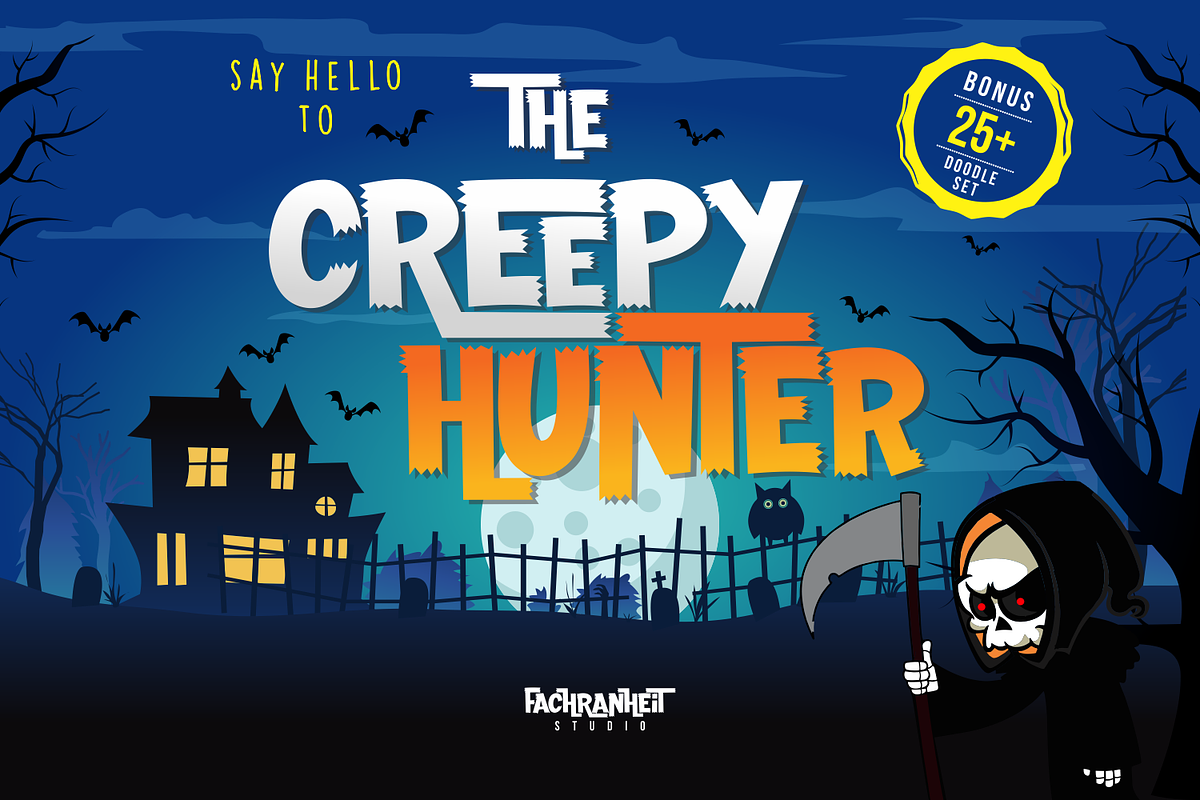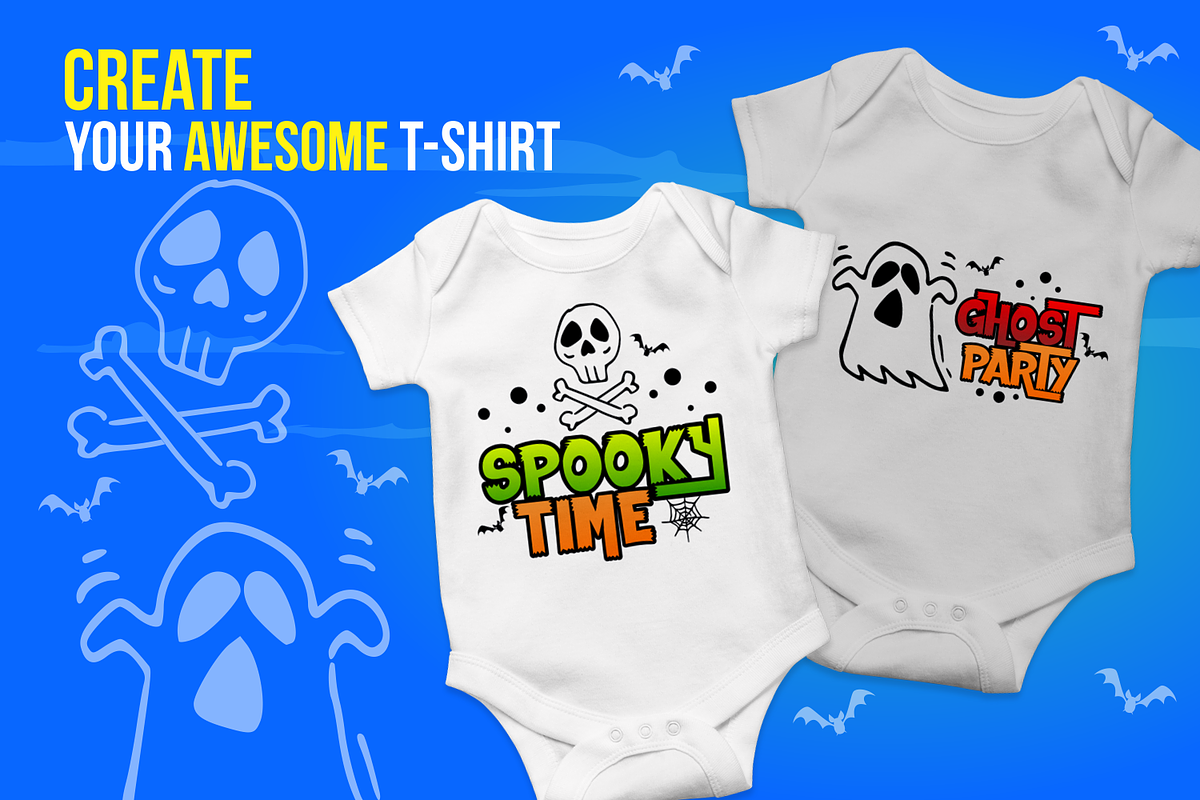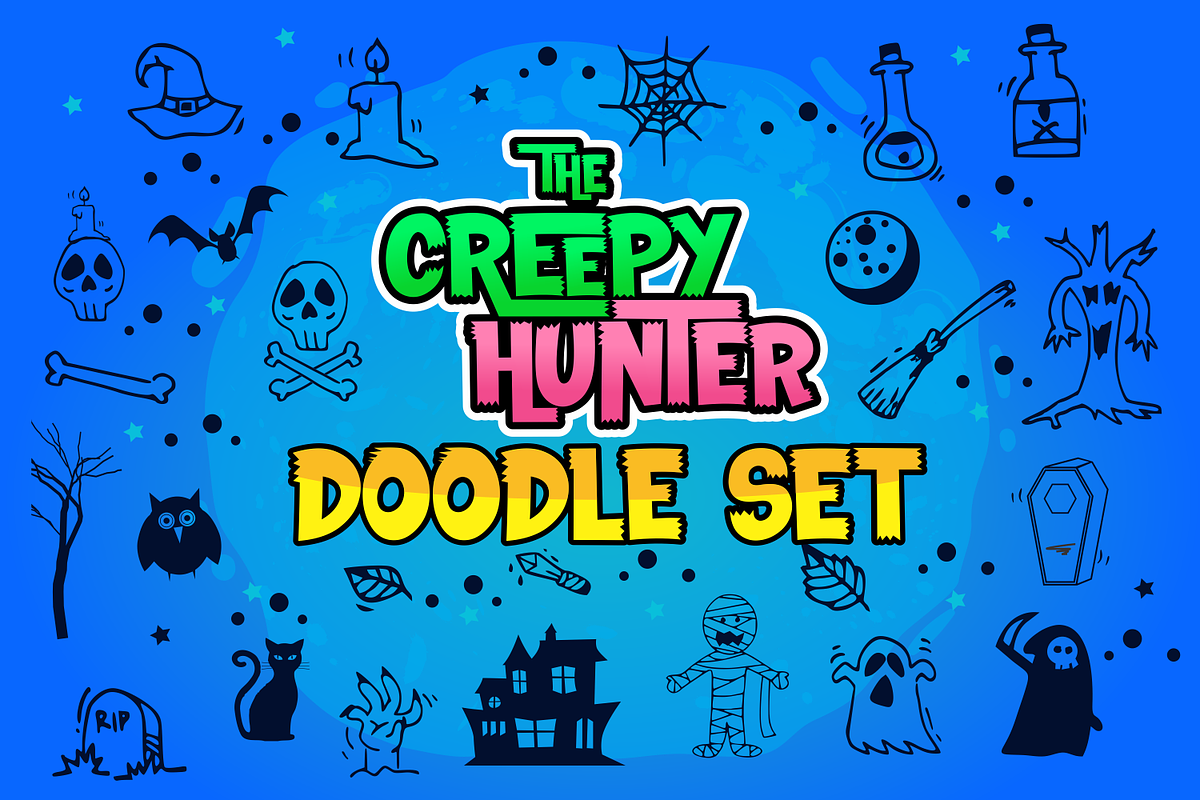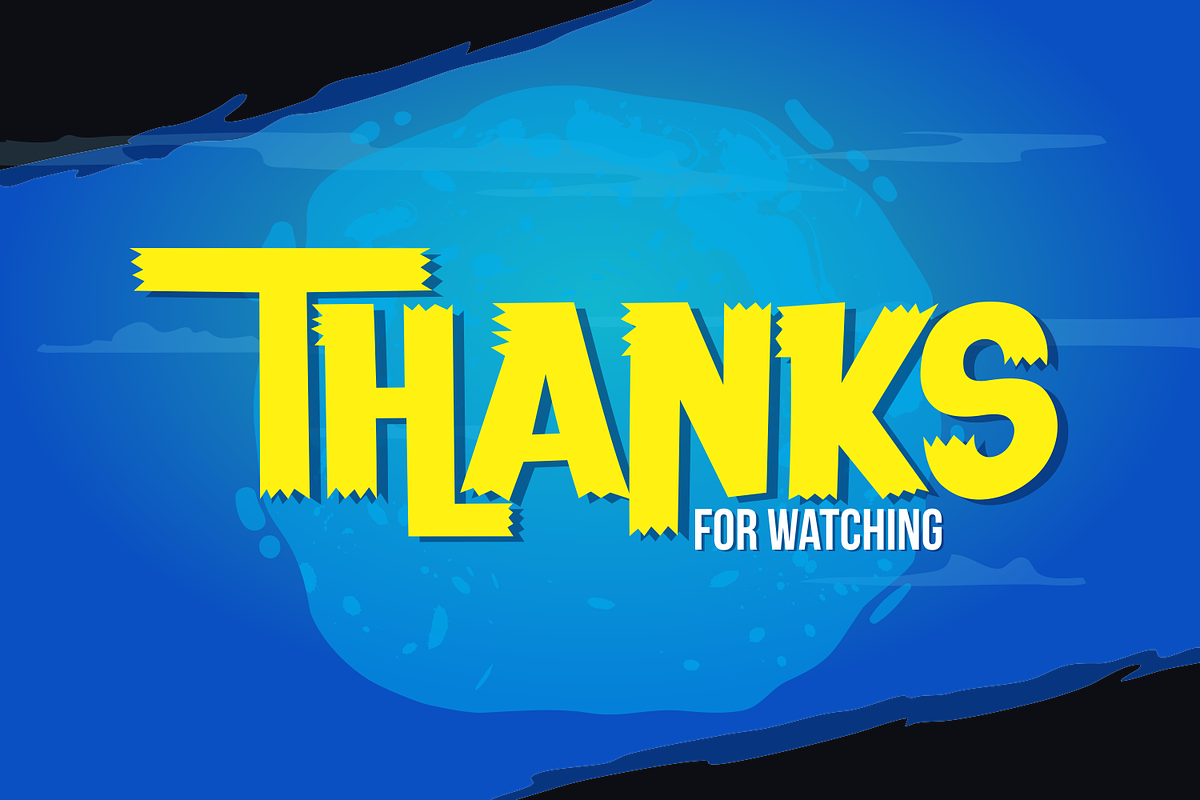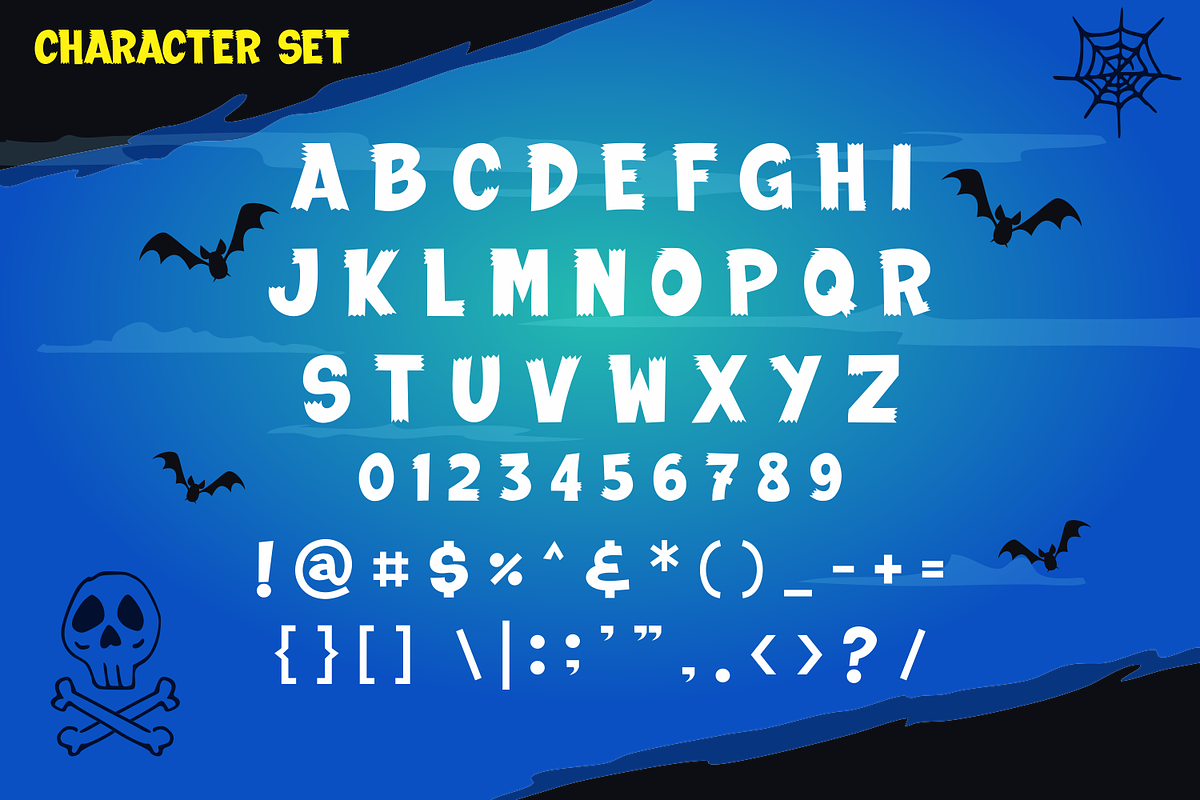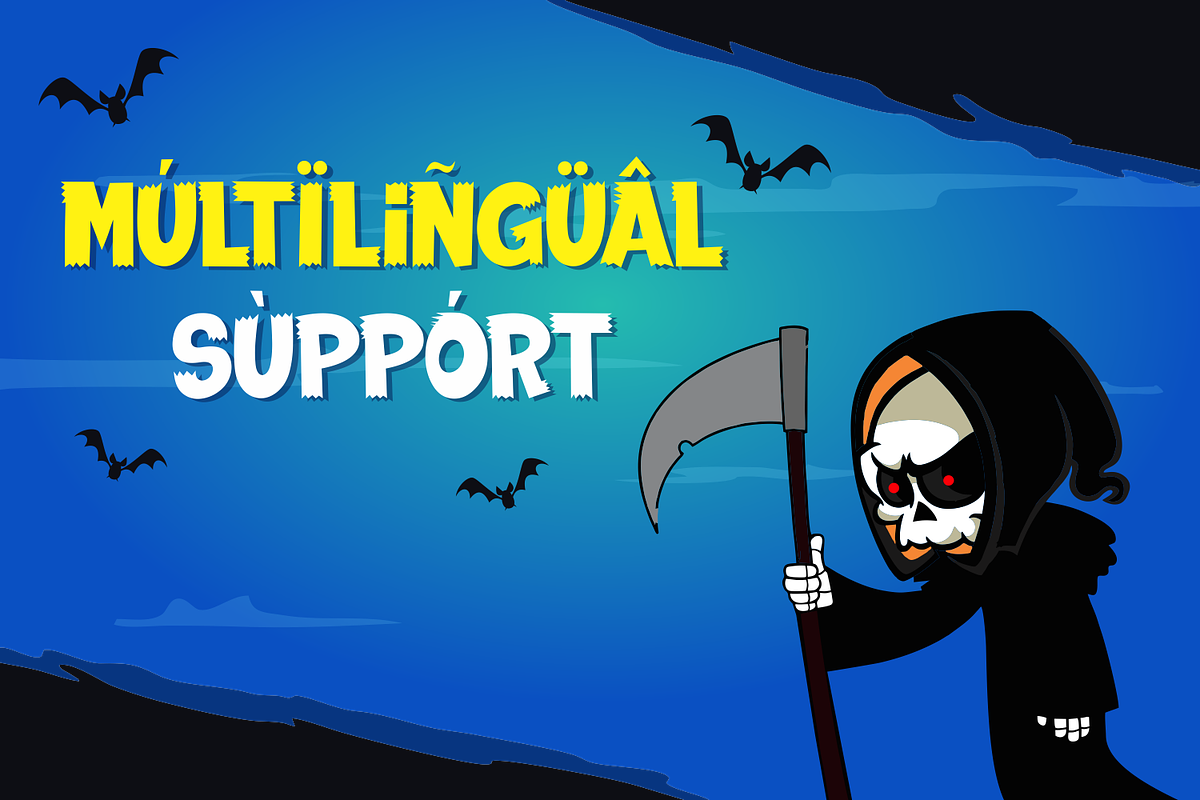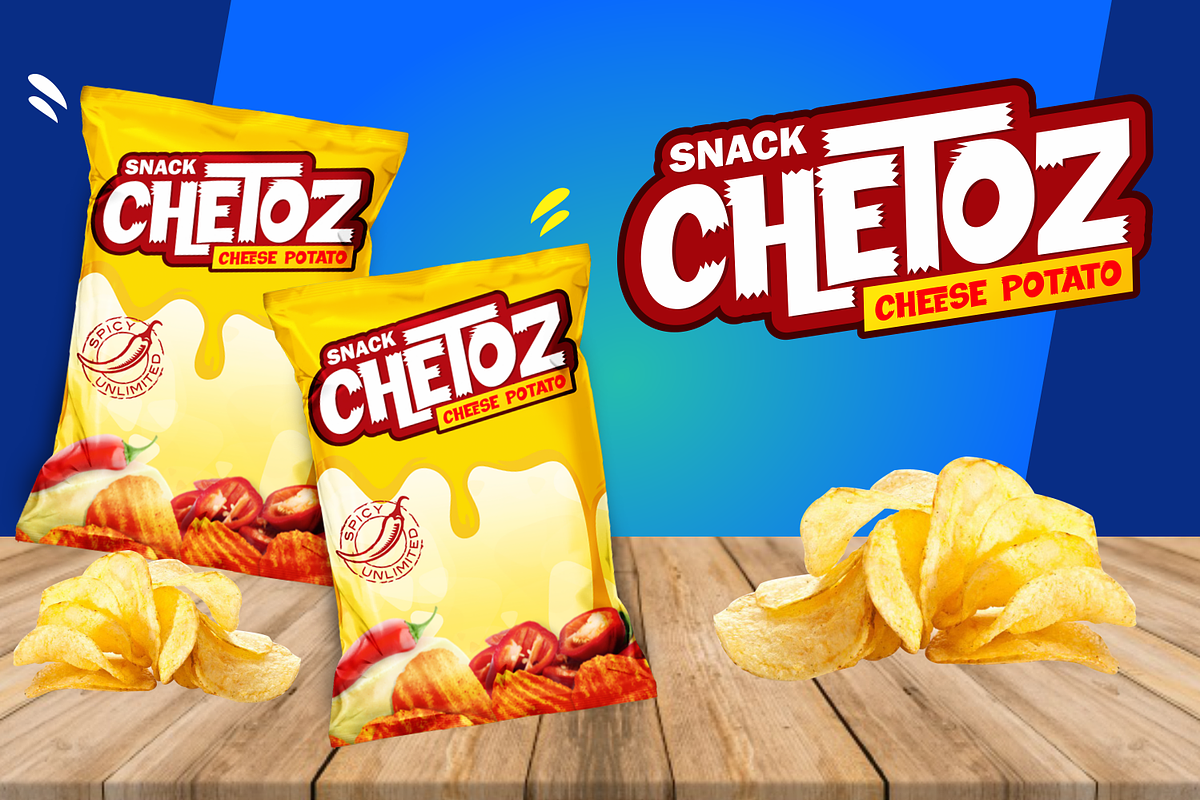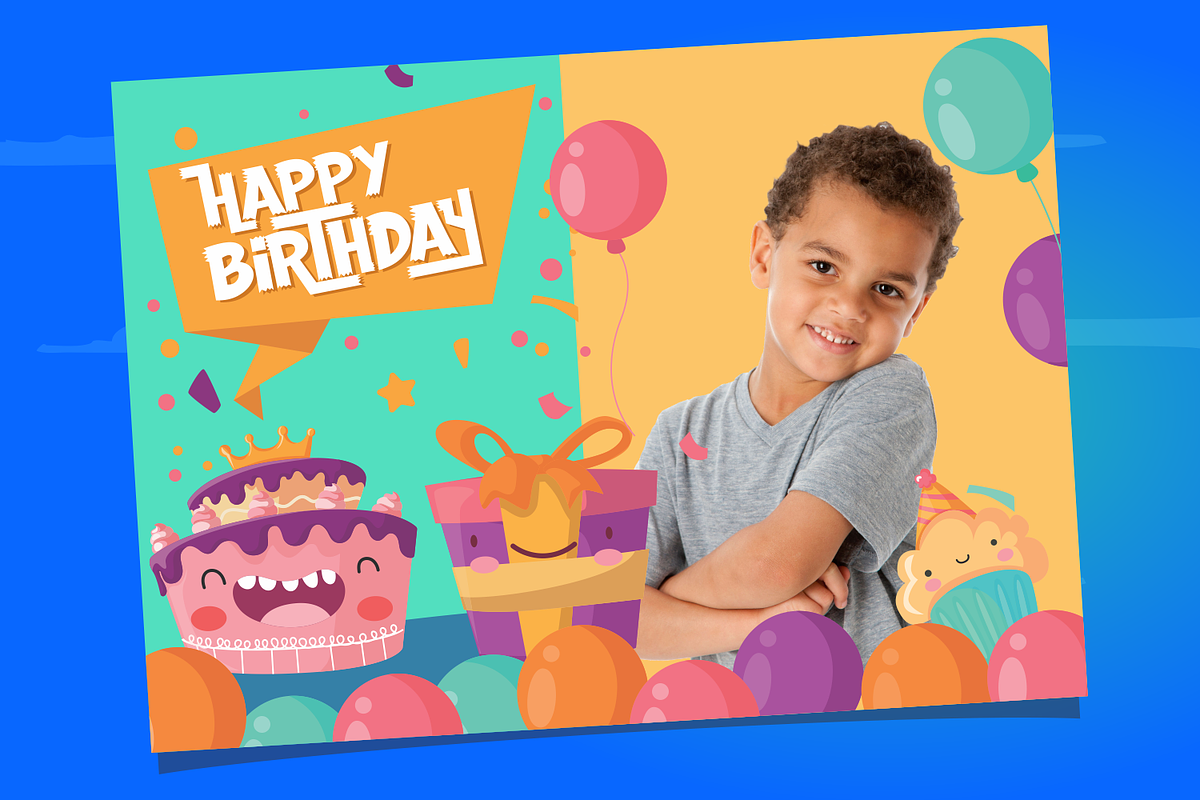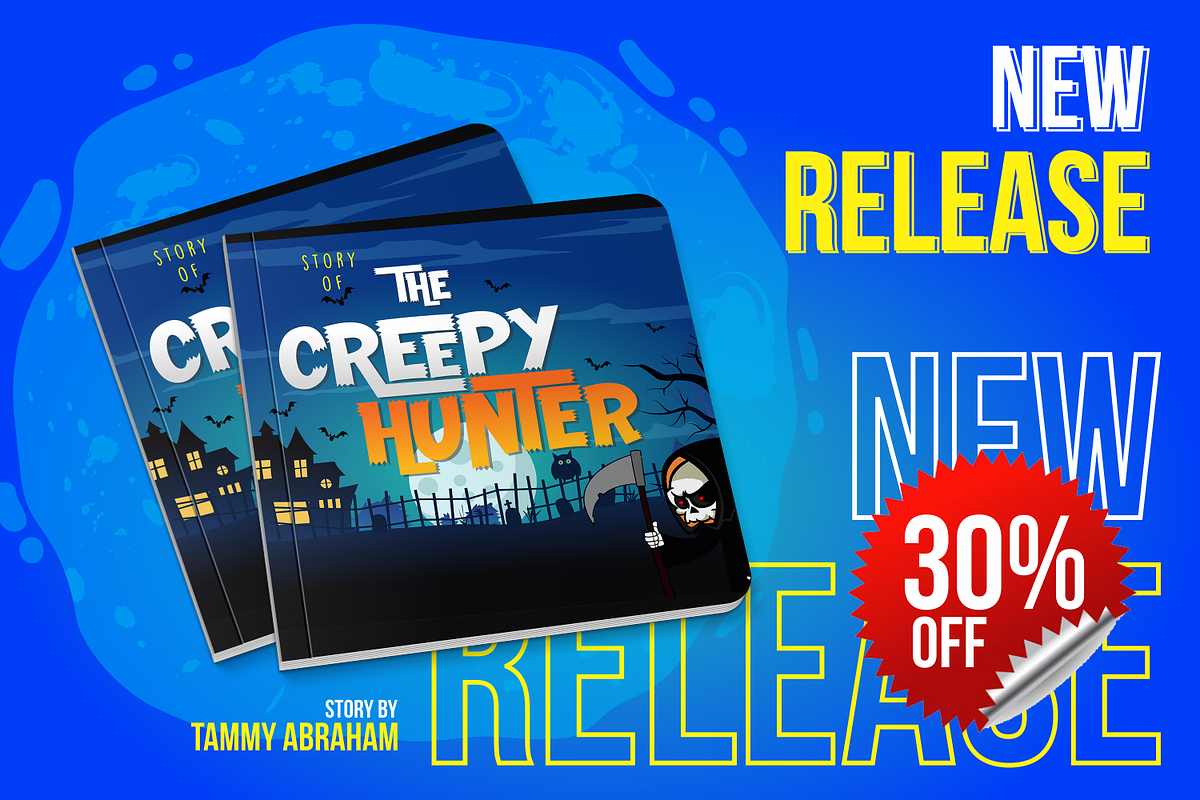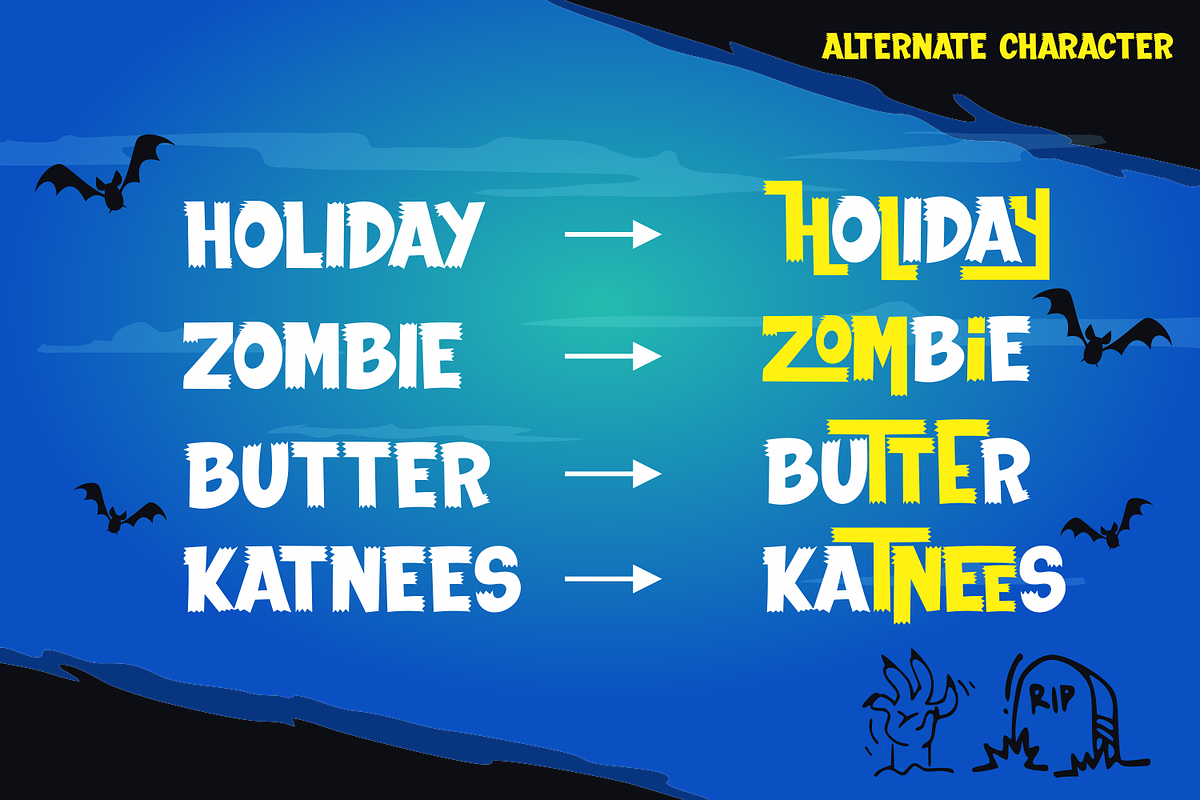
The Creepy Hunter
The Creepy Hunter is an incredibly unique display font with a cheerful feel. With extra 25 Doodle Set and Get inspired by its unique Horror style!